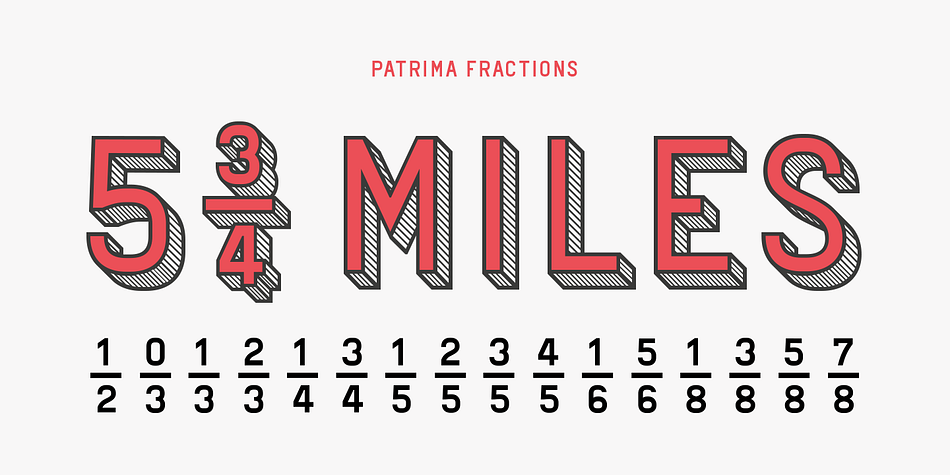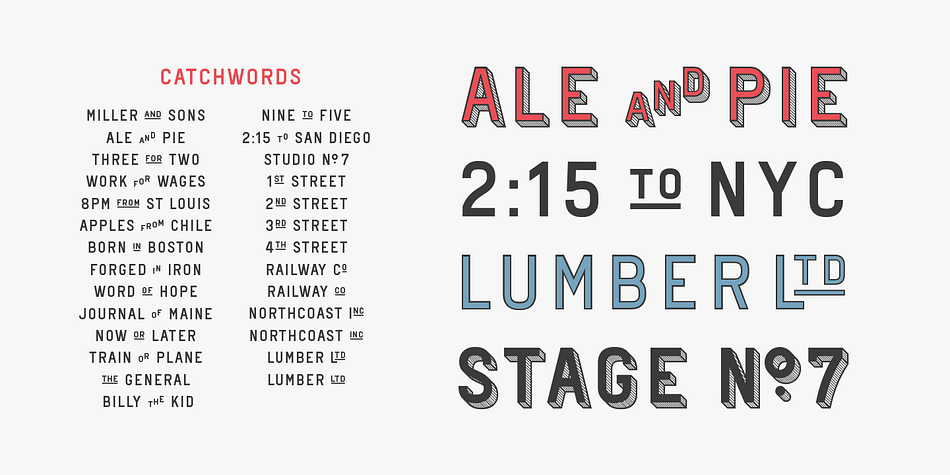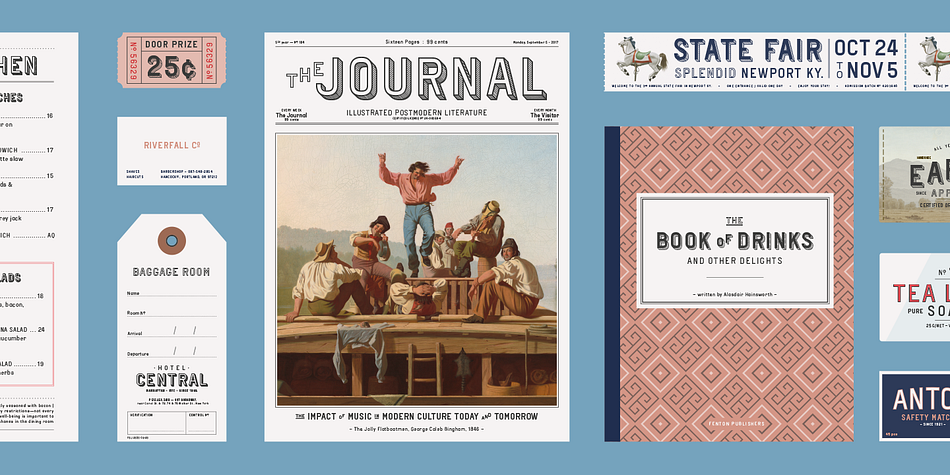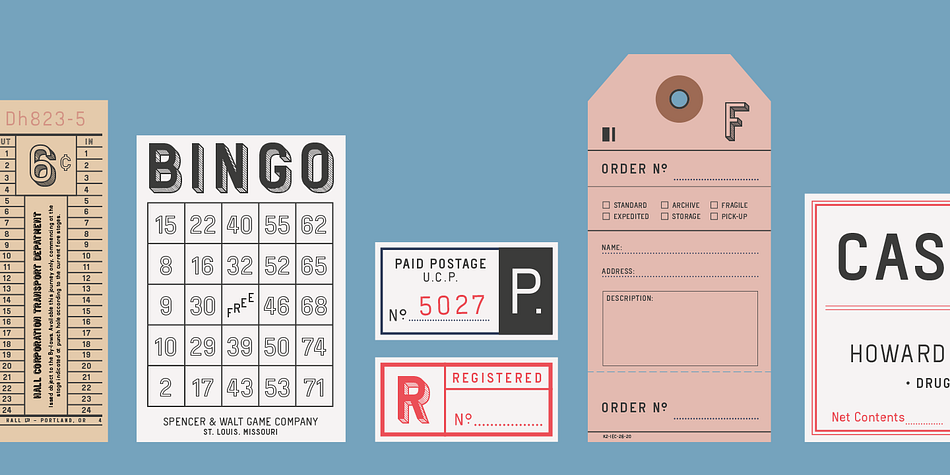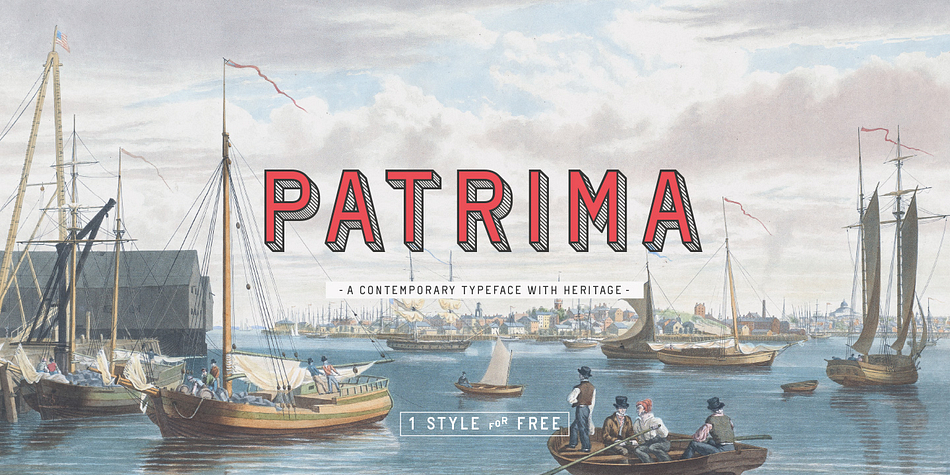
Designed by Juri Zaech, Patrima is a display sans font family. This typeface has five styles and was published by Juri Zaech.
Patrima is a contemporary typeface with roots in the past. Specifically in the late nineteen hundreds where decorative type applications were en vogue and dimensional aspects and shadings where heavily used. Patrima takes simplified cues from these designs to make the typeface contemporary and versatile. Its base is a squarish Sans which expands through diagonal hatching to a three dimensional body. The hatching is wide enough for screen applications down to 24pt while remaining detailed for decorative purposes in larger sizes.
Patrima’s different styles can be layered for chromatic results or used – complementary – alongside. As a decorative typeface it lends itself to display applications and eclectic logo designs, it brings a vintage touch to any branding project and elevates contemporary editorial layouts. Patrima comes with a set of catchwords which enrich its typographic texture even further. They are easily accessible through OpenType’s Discretionary Ligatures feature.